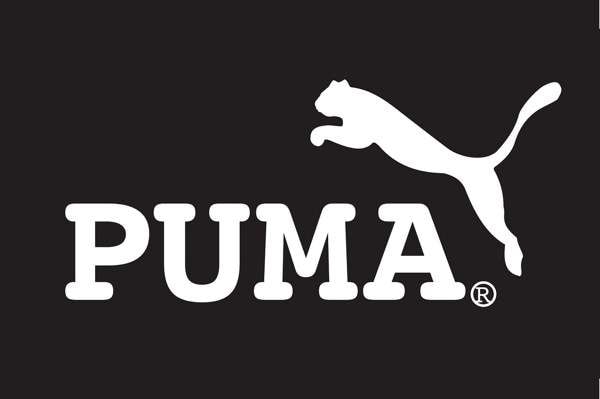
Typeface-Challenged Company Emblems
'Defaulted Logo Fonts' Shows the Importance of Letter Design
You never truly realize how important something is until it’s gone, and in the case of this ‘Defaulted Logo Fonts’ series, it’s the specific typefaces of company emblems. Coca Cola, Google, LEGO, Volkswagen, FedEx, Puma, Ikea, MTV, Nintendo and more have text in their logos, and the specific typefaces used to present the letters are synonymous with their overall brand. In good natured fun, an anonymous Internet user has re-imagined these iconic companies’ monikers using the default Courier typeface and, as you can see, the logos have lost much of their visual impact as a result.
There are 21 ‘Defaulted Logo Fonts’ in total and they’re all rather humorous to look at. They also serve as a reminder to viewers just how important design is to the everyday products that surround their lives.